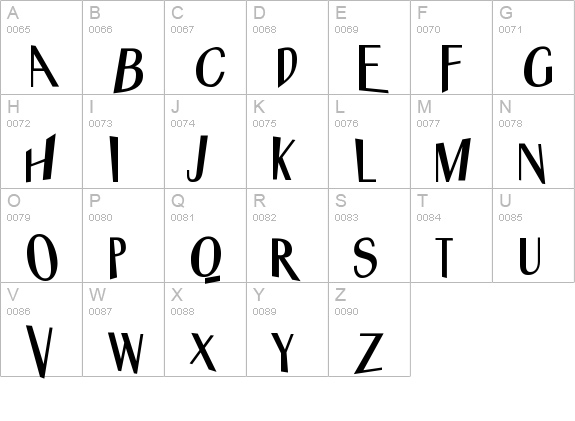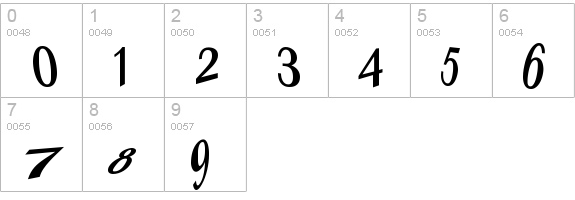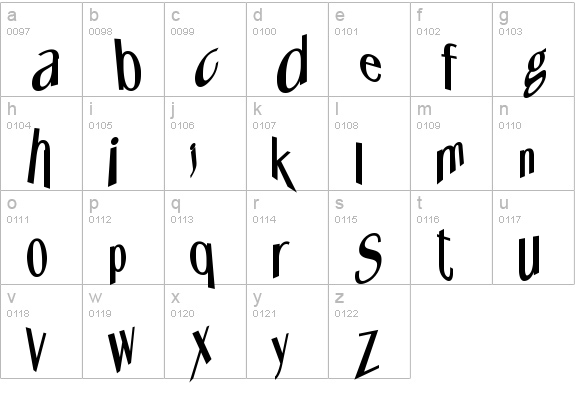
WhatsHappened Font Details
Introducing WhatsHappened, a striking and dynamic font designed to captivate and engage readers. With its unique and modern design, WhatsHappened is perfect for a wide range of creative projects, from eye-catching logos to attention-grabbing headlines. WhatsHappened combines bold lines and playful curves to create a font that exudes energy and excitement. Its distinct character sets it apart, making it an ideal choice for those seeking to make a lasting impression. Whether you're designing a poster, creating social media graphics, or crafting invitations, WhatsHappened will add a touch of vibrancy and personality to your work. But that's not all - WhatsHappened is also free! Yes, you heard it right. This incredible font is freely available to download at FontsMarket.com. Now, you can take advantage of its bold and captivating style without breaking the bank. Simply visit FontsMarket.com and get your hands on WhatsHappened to elevate your designs to new heights. Don't miss out on this opportunity to add a touch of excitement and creativity to your next project. Download WhatsHappened for free at FontsMarket.com and watch as your designs come to life with this captivating font.